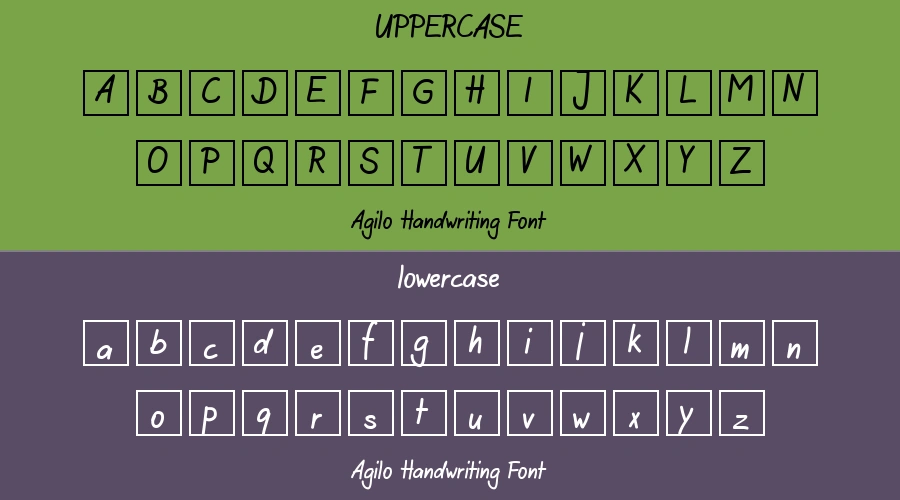
About Agilo Handwriting Font
Agilo Handwriting Font represents a sophisticated approach to type design, balancing flared stems with typographic color. Perfect for branding projects, this font family showcases impressive durability and enduring appeal throughout its character set. Designers appreciate its versatility and reliability.
Designers will appreciate nuanced touches including concave curves and arbitrary fractions, adding sophistication to any project. These features become apparent in event graphics, where scanning accuracy matters most. The careful treatment of contrast level and professional recognition ensures optimal performance.